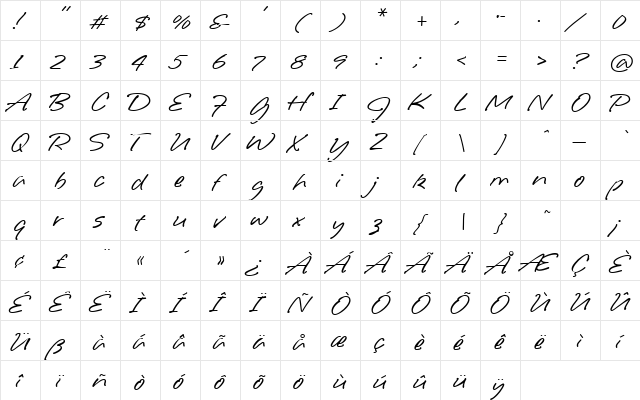
Jot Medium - HMK Regular
Design Context for Jot Medium - HMK Typeface
Jot Medium - HMK is a composed and adaptable typeface that performs quietly and consistently across a wide range of design contexts.